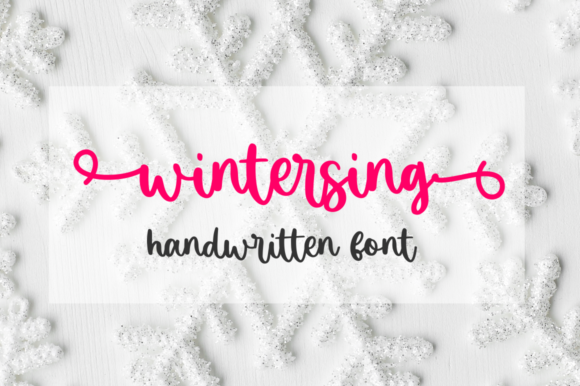
Unleash the charm and uniqueness in your designs with Wintersing Font, a handcrafted masterpiece that will captivate your audience and leave a lasting impression. This exquisite script font exudes elegance and a touch of whimsy, making it the perfect choice for adding a personal touch to your creative projects.
Journey into a world of boundless creativity with Wintersing, a font that dances and flows with grace. Its enchanting curves and delicate strokes bring a sense of warmth and charm to every letter, creating designs that speak to the heart. Whether you're crafting invitations, branding your business, or designing social media posts, Wintersing adds a touch of magic that will make your projects shine.
With Wintersing, the possibilities are endless. Its versatility knows no bounds, allowing you to effortlessly elevate your designs in a myriad of ways. From crafting stunning wedding designs to creating eye-catching product packaging, Wintersing adapts seamlessly to your vision, adding a touch of elegance and sophistication wherever it goes.
Unlock the full potential of Wintersing with its PUA encoding, granting you effortless access to a treasure trove of glyphs and swashes. Unleash your creativity and let Wintersing guide you on a journey of artistic exploration, where every design tells a captivating story.
Embrace the beauty of Wintersing and let its enchanting characters transform your projects into works of art. Its delicate lines and enchanting curves will capture attention and leave a lasting impression, making your designs truly unforgettable.